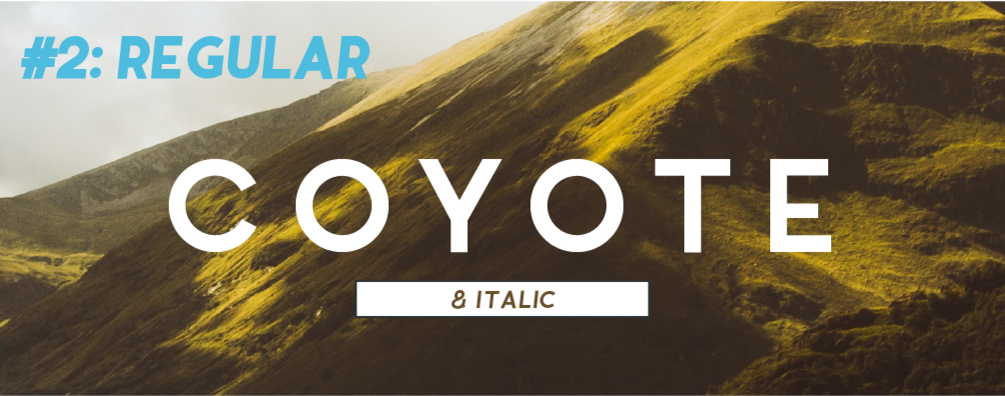
Coyote Regular
Coyote is a fancy retro font with sharp edges to emphasize the calm character of the font. Or you go crazy with the alternative letters.